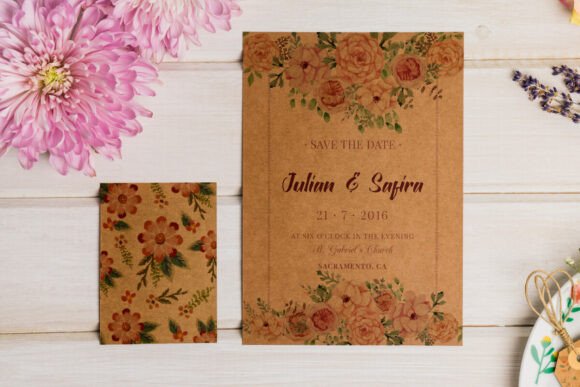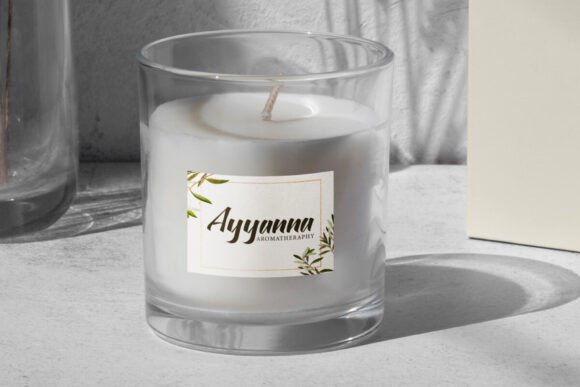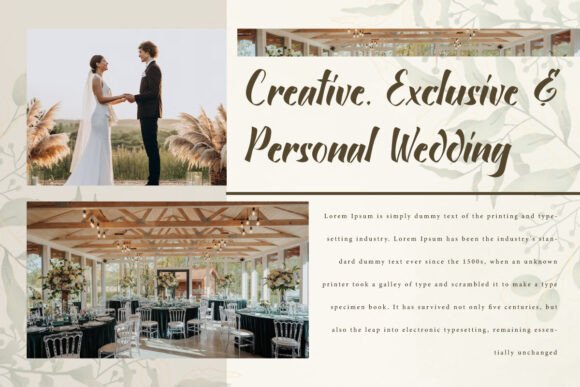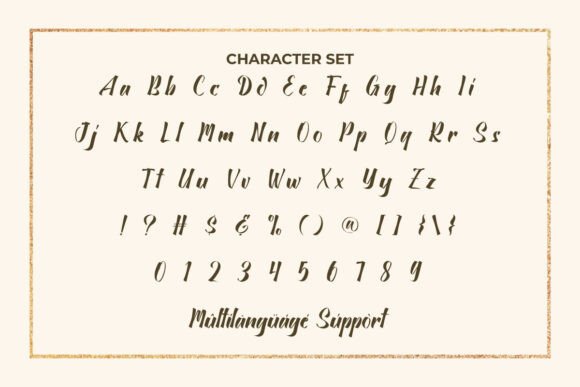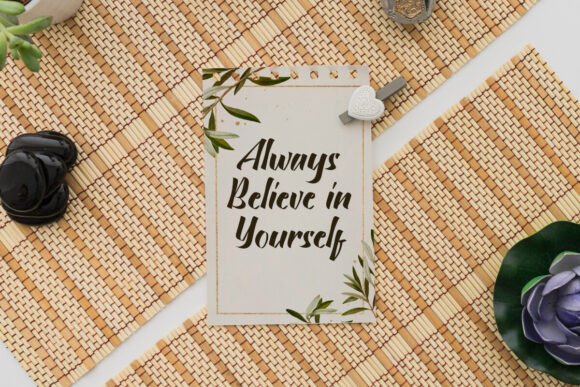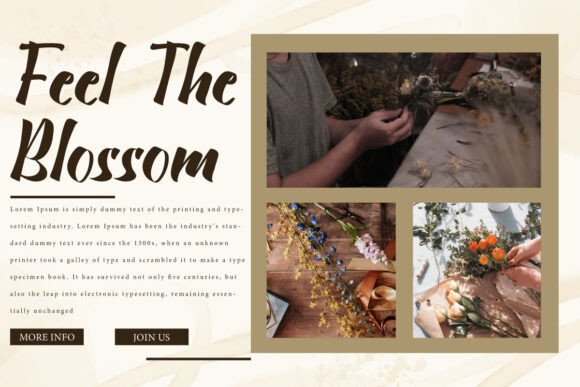
Introduction to Grand Nirmala Font
Grand Nirmala is a beautiful hand calligraphy script font.
This font exudes a strong feminine aura and its charm can make any design look stunning It will be suitable for any industries, such as advertisement, beauty product, event or wedding organizer, café, fashion, florist, photography, printing, publishing, and more.